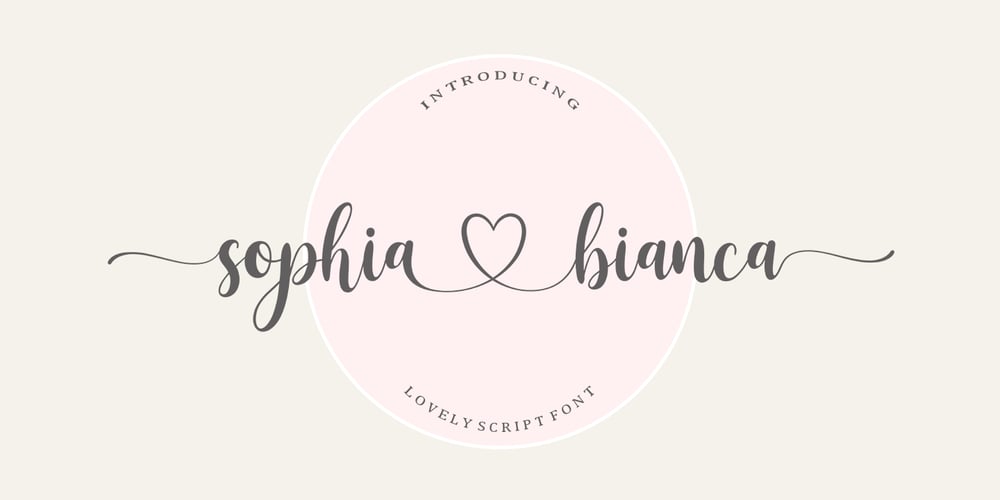
Sophia Bianca Font Family was designed by Mu Fazzal and published by Bosstypestudio. Sophia Bianca contains 1 styles and family package options. Sophia Bianca is a new calligraphy font which is fresh, funny, interesting and with a cute heart that can be connected. It is suitable for greeting cards, branding materials, business cards, quotes, posters, and more!Sophia Bianca includes many alternative characters. Coded with Unicode PUA, which allows full access to all additional characters without having special design software. Mac users can use Font Book. Windows users can use the Character Map to view and copy one of the additional characters to paste into your favorite text editor. For people who have opentype-capable software: Alternatives can be accessed by turning on the “Alternative Style” and “Ligature” buttons on the Photoshop Characters panel, or through any software with glyph panels, e.g. Adobe Illustrator, Photoshop CC, Inkscape.Thank You!